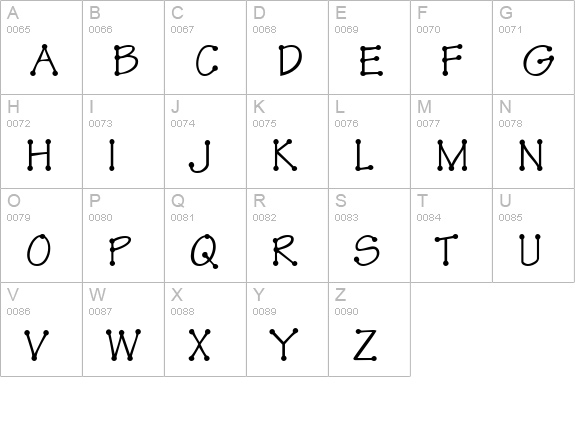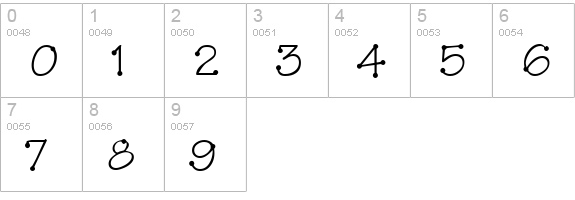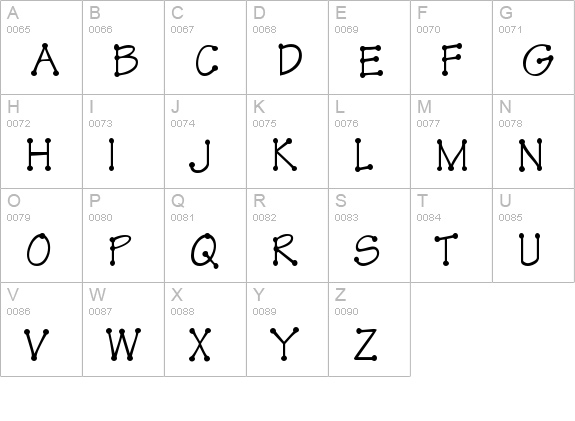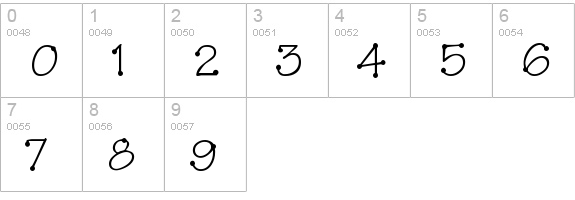
TinkerToy Font Details
Introducing TinkerToy font, a whimsical and delightful typeface that will ignite your creativity and transport you back to the carefree days of childhood. This playful font brings to life the nostalgic charm of Tinker Toys, those beloved construction toys that sparked endless imagination and invention. With its eye-catching and unique letterforms, TinkerToy font captures the essence of youthful curiosity and boundless exploration. Each character is meticulously crafted to resemble the iconic wooden pieces of Tinker Toys, with rounded edges and a delightful sense of movement. Whether used in headlines, logos, or graphic designs, this font adds a touch of whimsy and a dash of personality to any project. What's even more exciting is that TinkerToy font is available for free! That's right, you can easily download this font, completely free of charge, at FontsMarket.com. We believe that creativity should be accessible to all, and by making this font freely available, we hope to inspire countless designers, artists, and enthusiasts to bring their ideas to life with a touch of childhood wonder. So go ahead, embrace the joy of TinkerToy font and let your imagination run wild. Create captivating designs, evoke feelings of nostalgia, and bring a sense of playfulness to your projects. Download TinkerToy font today and unlock a world of endless possibilities.